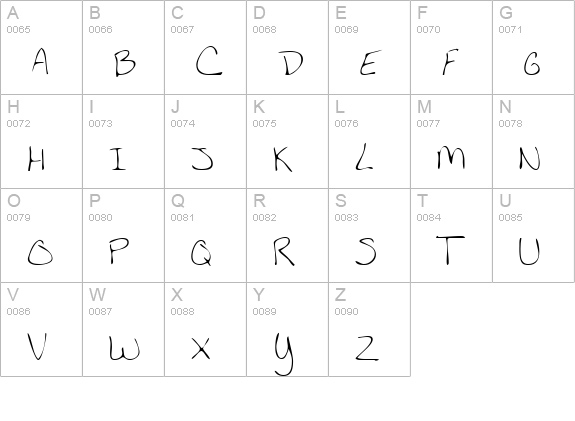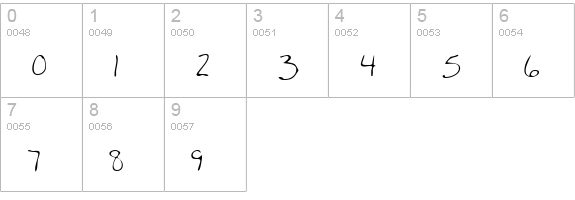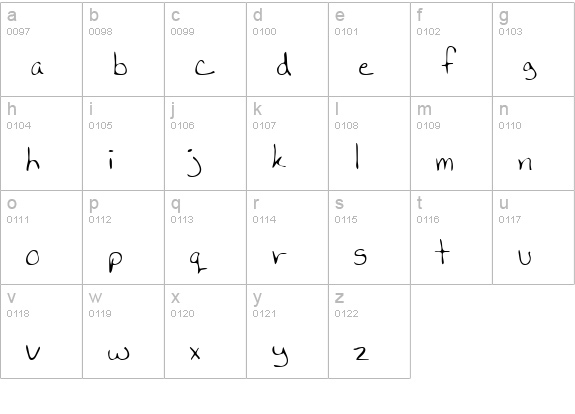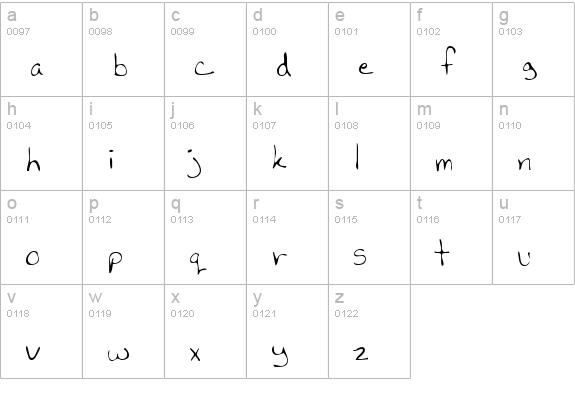
KellysHand Regular Font Details
KellysHand Regular is the standard, neutral variant in the KellysHand typeface family \xE2\x80\x94 well suited to general body text, paragraphs, and standard typographic work.
KellysHand Regular font is a delightful and charming typeface that adds a touch of warmth and personality to any design project. With its elegant yet playful letterforms, this font is perfect for creating eye-catching headlines, stylish logos, and inviting invitations. The smooth curves and graceful strokes give KellysHand Regular a sense of fluidity and movement, making it a versatile choice for both digital and print designs. What makes KellysHand Regular even more appealing is that it is available for free download at FontsMarket.com. This means that you can easily access and enjoy this beautiful font without any hassle or cost. Whether you are a professional designer or a hobbyist, having a high-quality font like KellysHand Regular in your collection is a valuable asset. With KellysHand Regular, you have the freedom to explore your creativity and bring your ideas to life. Its legibility and unique personality make it suitable for a wide range of projects, from branding and advertising to social media graphics and personal stationery. The carefully crafted letterforms ensure that your message is communicated effectively and beautifully, capturing the attention of your audience. So why wait? Experience the beauty and versatility of KellysHand Regular by downloading it for free at FontsMarket.com. Enhance your designs with this elegant and expressive font, and let your creativity flourish. With KellysHand Regular, you have the freedom to create stunning and memorable designs that stand out from the crowd.